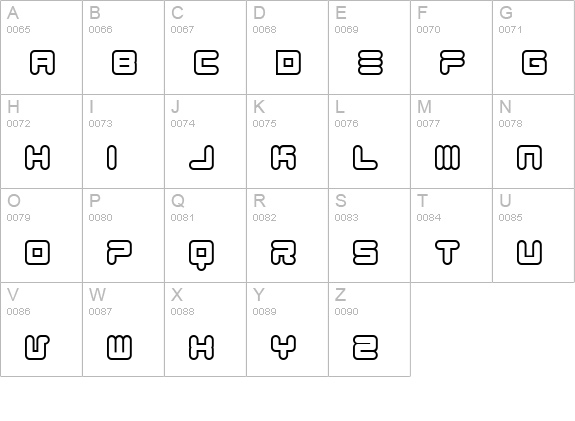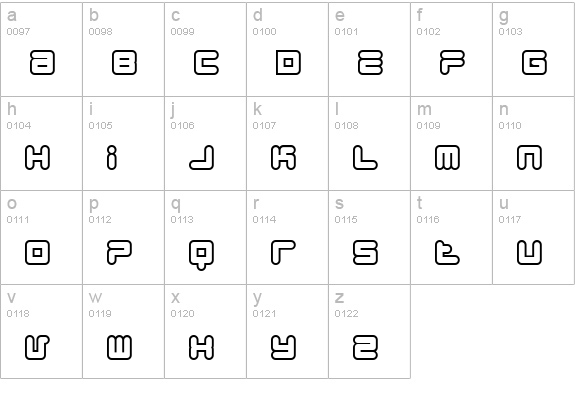
The 1900.80.5 font is a modern and stylish typeface that is perfect for a wide range of design projects. With its sleek lines and elegant curves, this font exudes sophistication and professionalism. Whether you are creating a logo, website, poster, or any other design, the 1900.80.5 font will add a touch of class to your work. Best of all, this font is available for free download at FontsMarket.com. You can easily access this beautiful font and use it in your projects without any cost. Don't miss out on the opportunity to enhance your designs with the 1900.80.5 font – download it today and elevate your creative work to the next level.